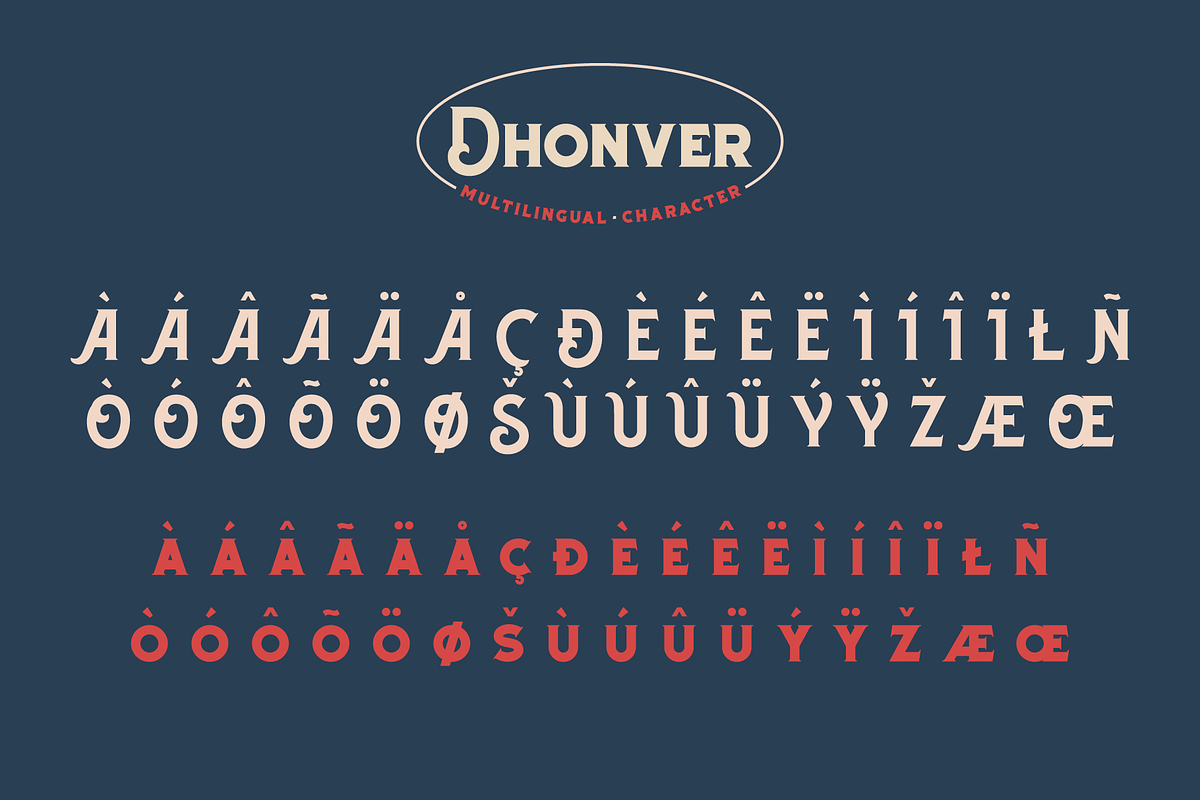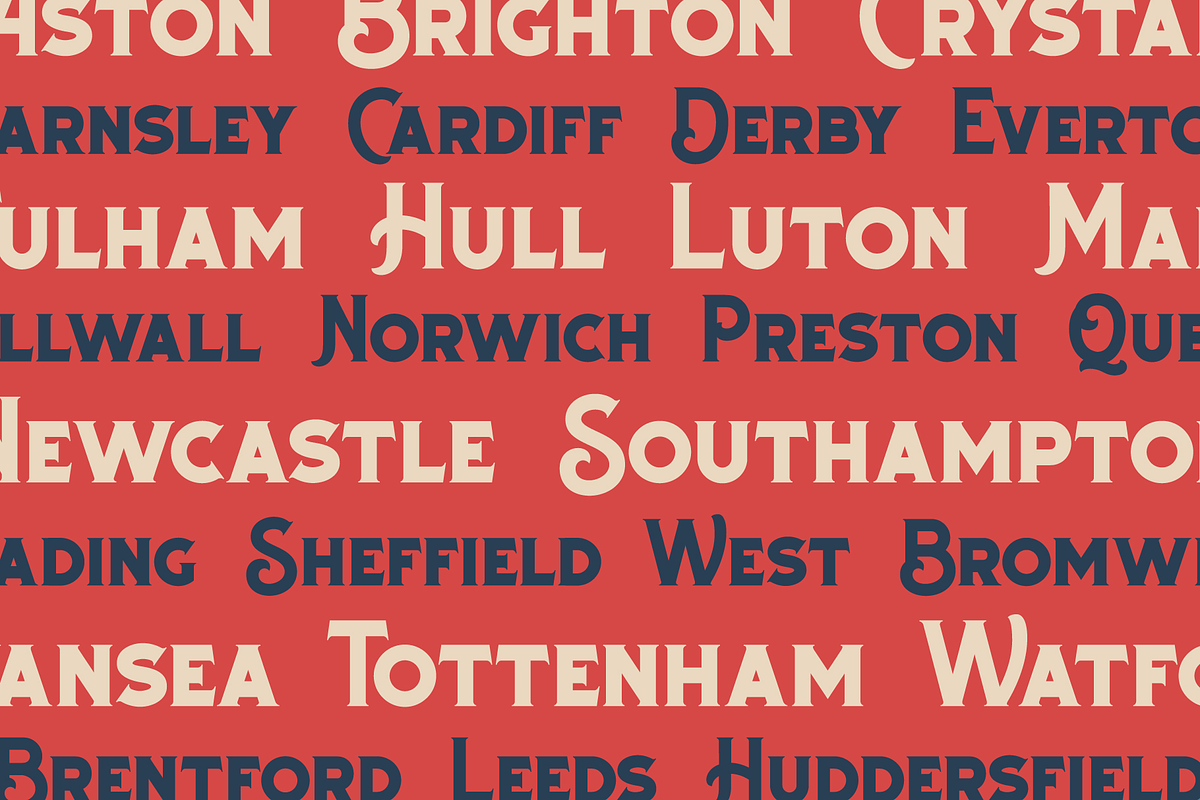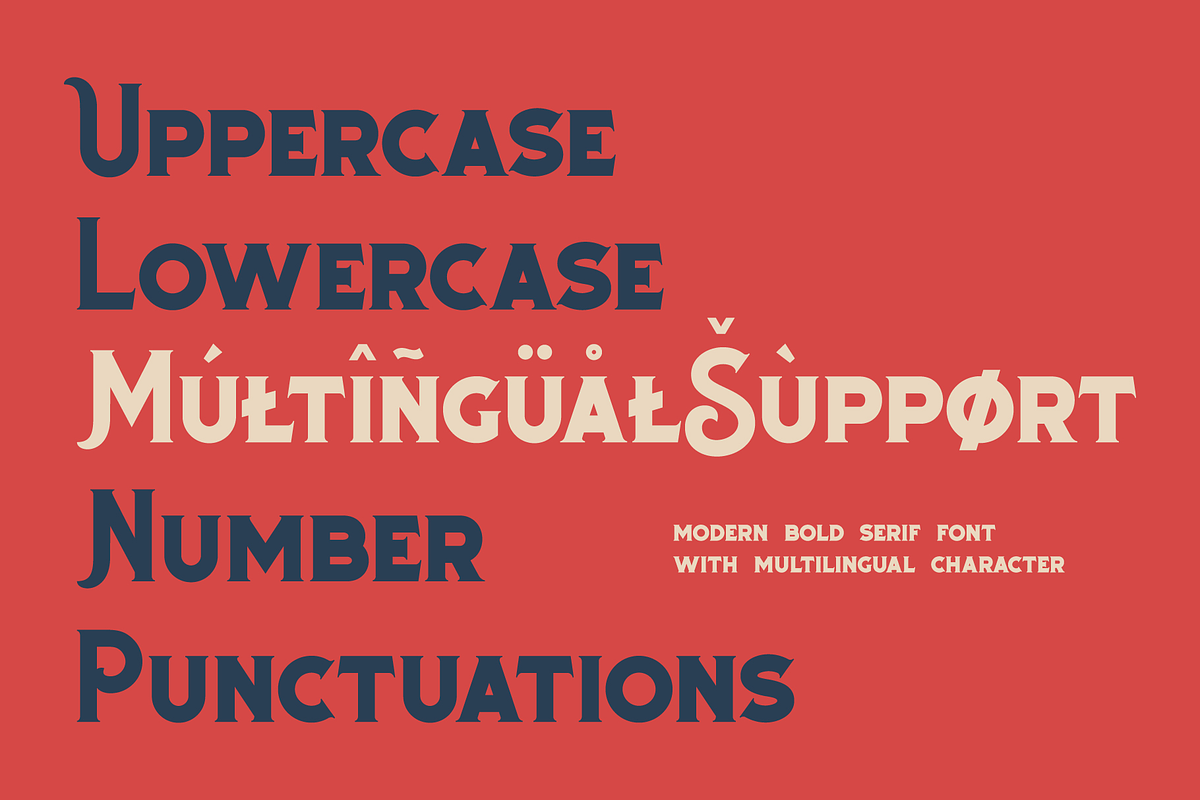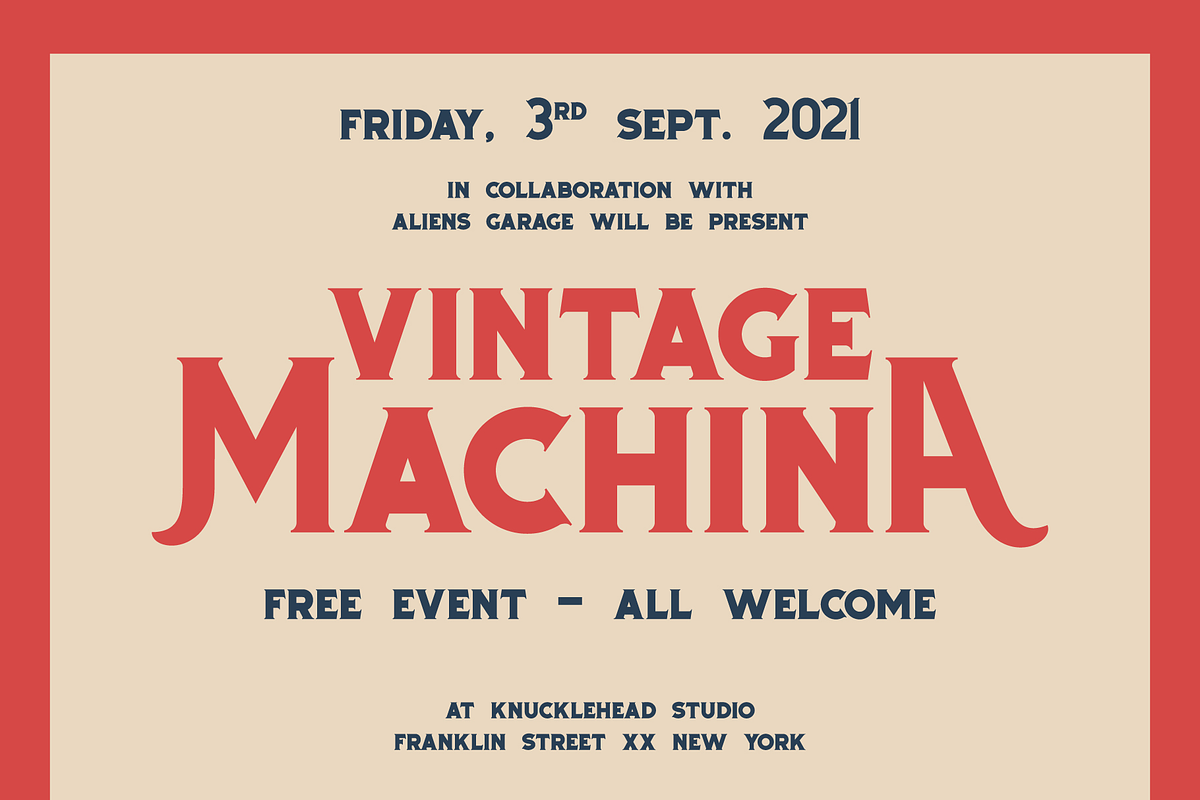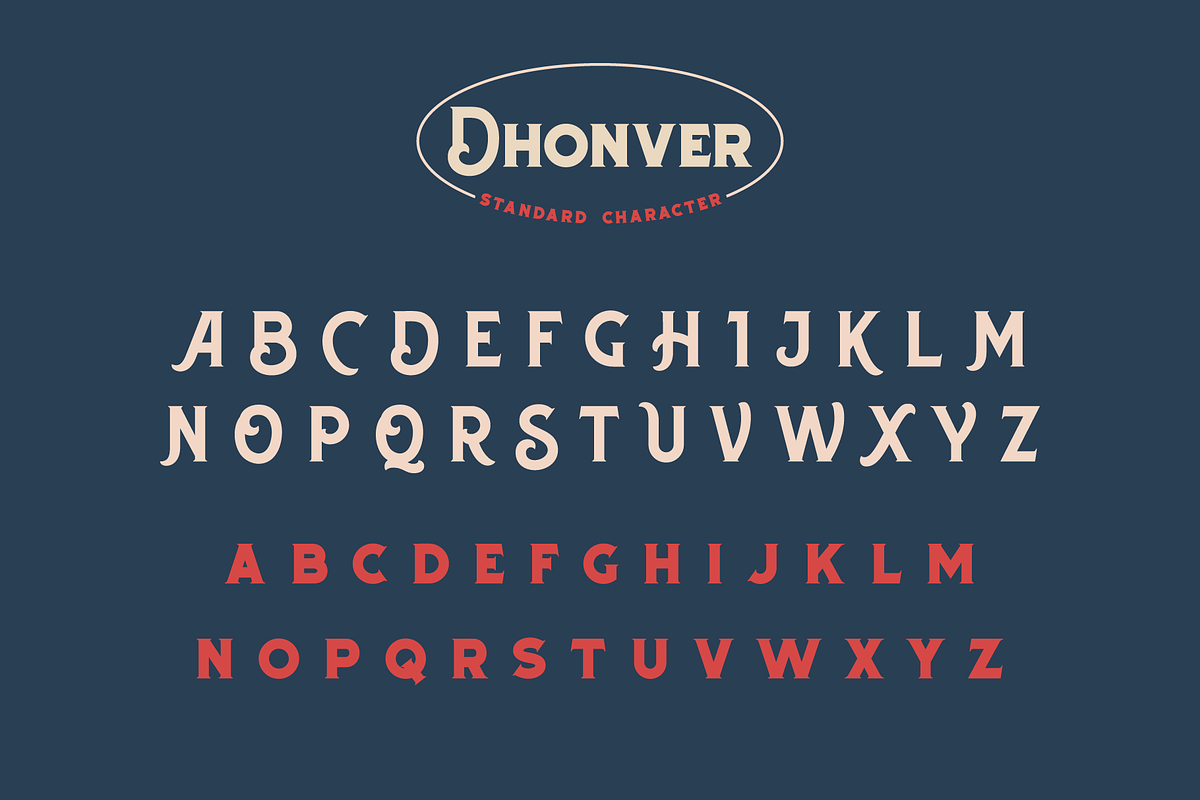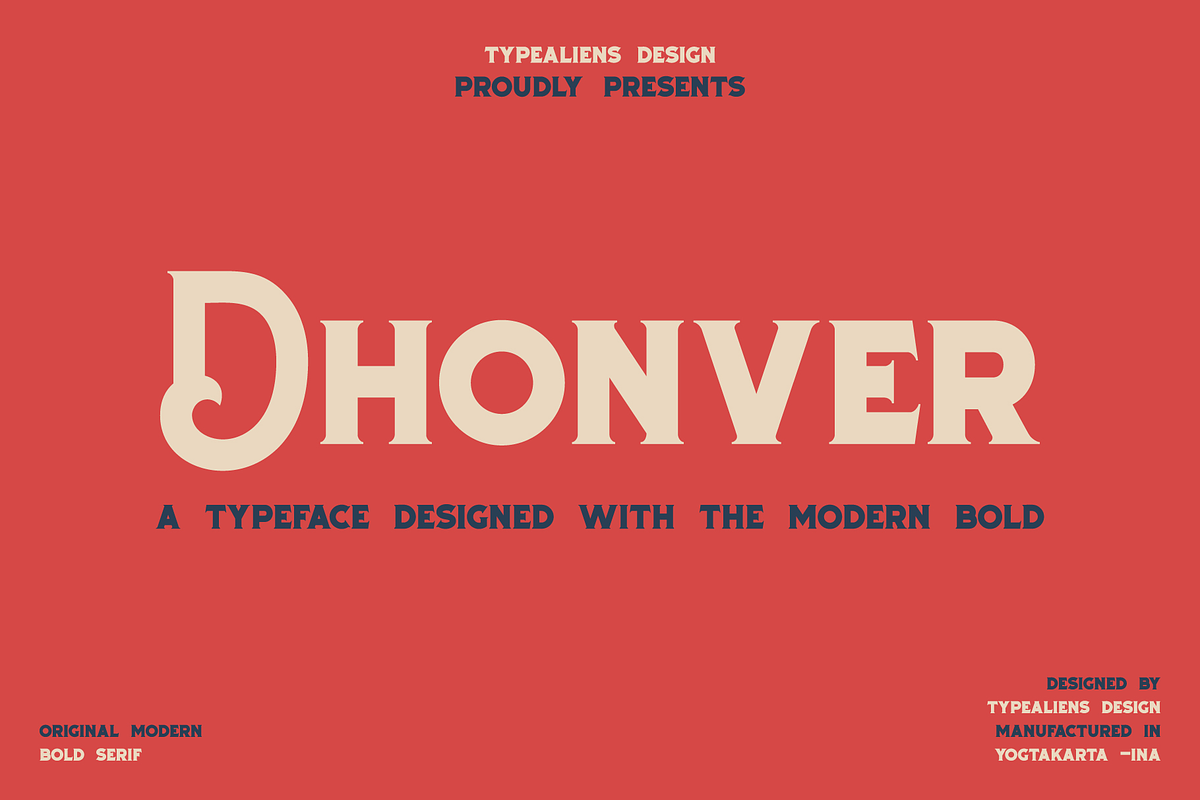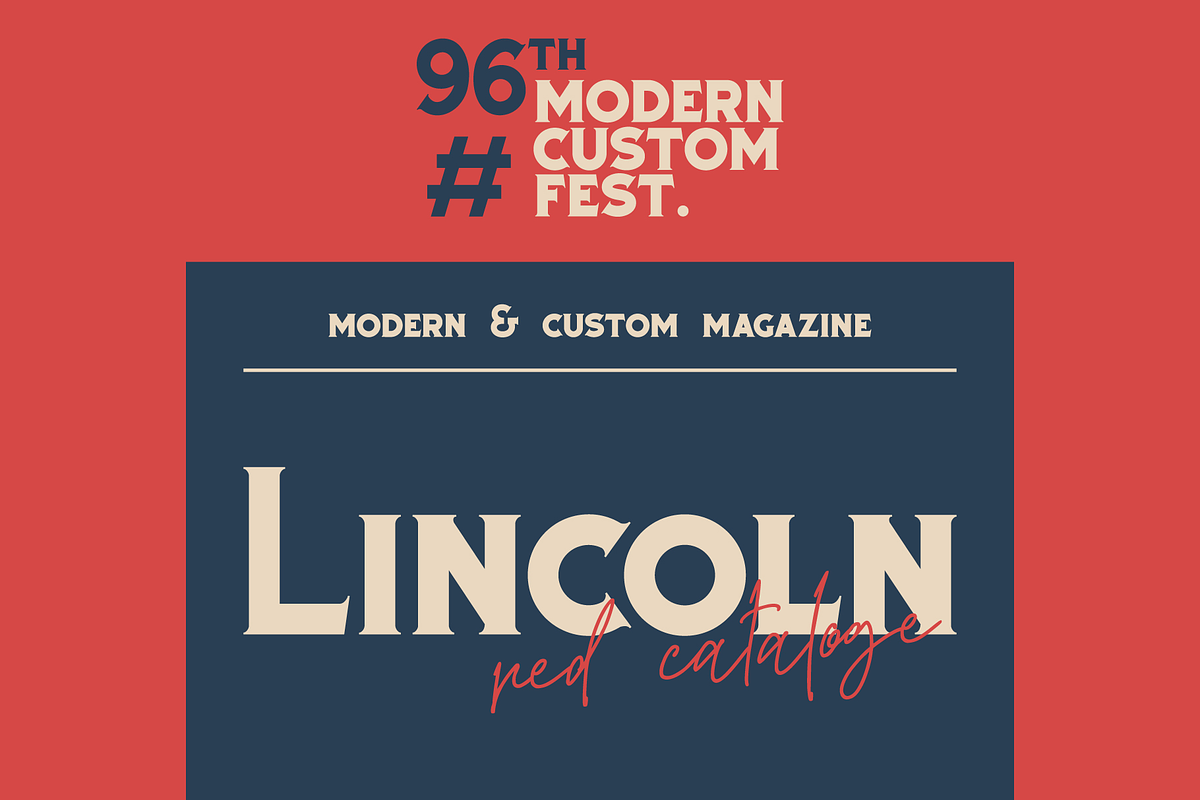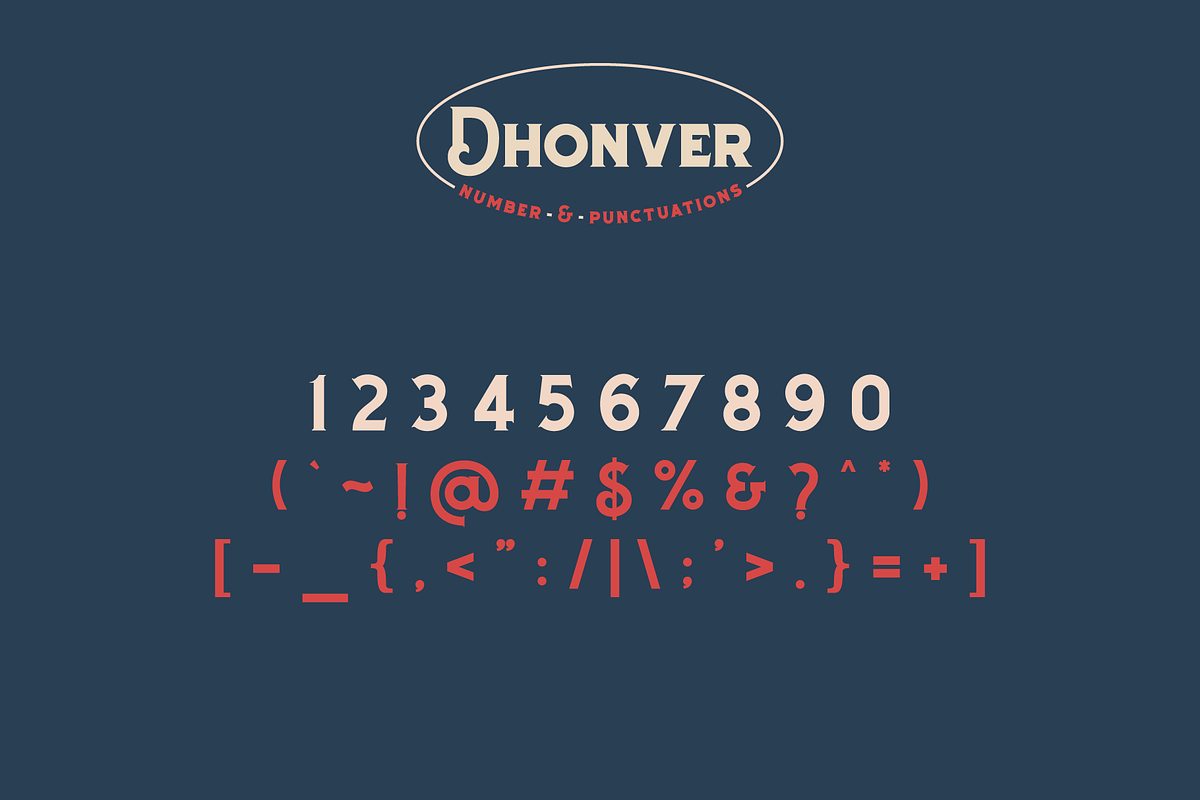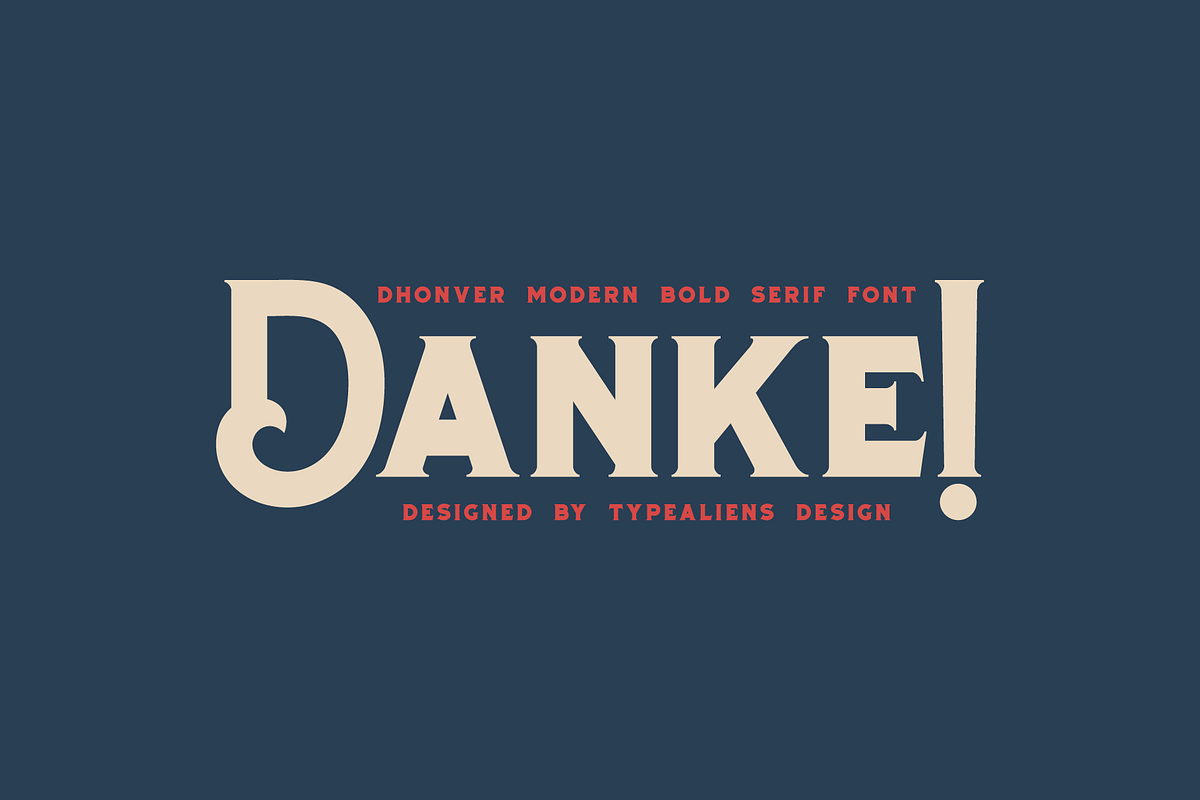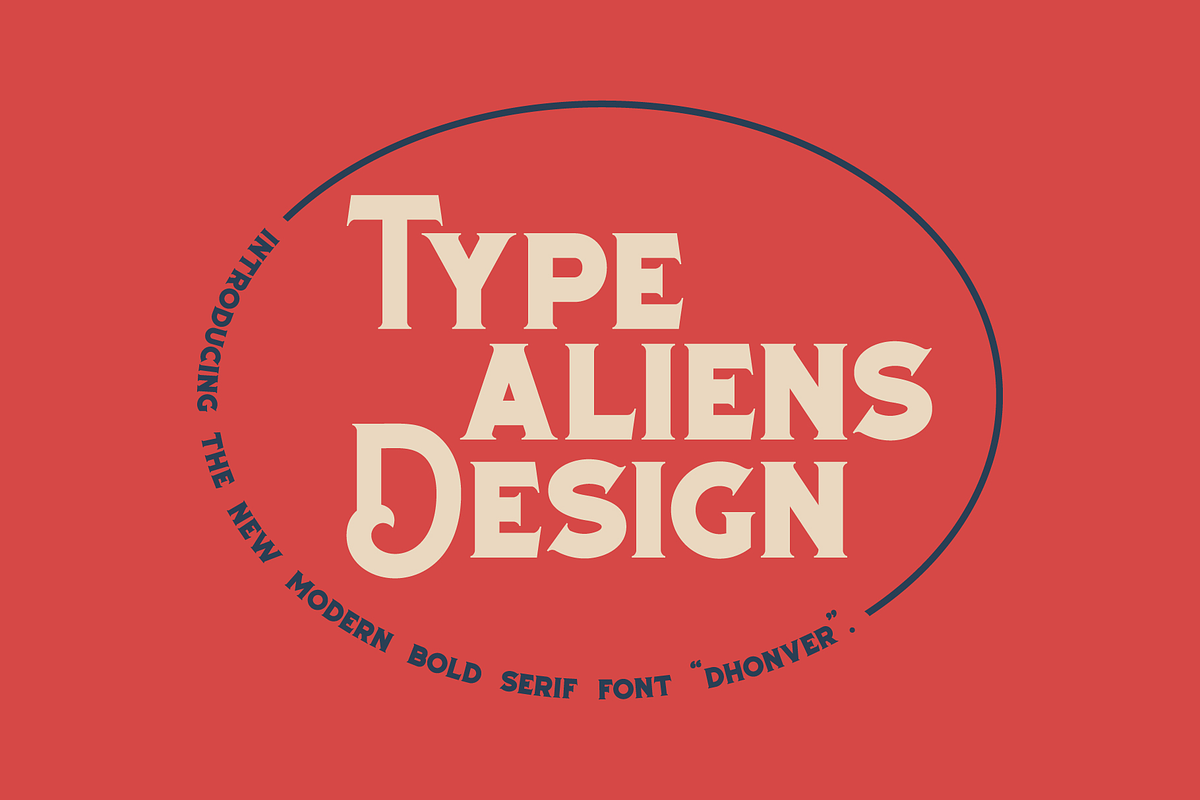
Dhonver
DHONVER
Dhonver is a sans serif font that is quite unique, because some characters have a stroke shape that is quite unique. A font that is very suitable to support designs that are modern, formal designs, clean and simple designs.